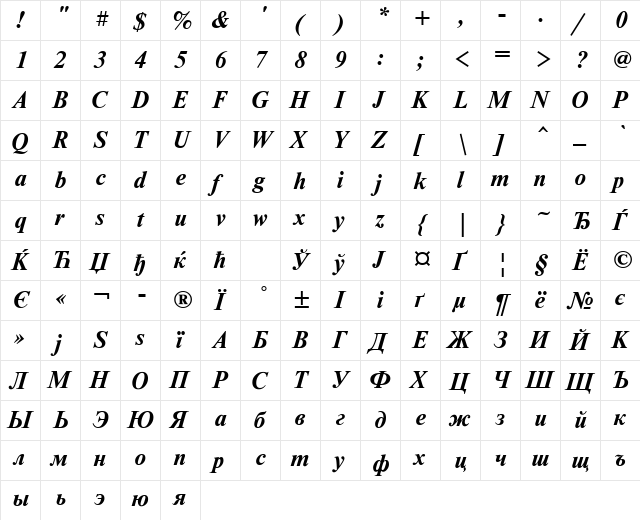
NewtonCTT BoldItalic
Design Context for NewtonCTT Typeface
NewtonCTT offers clean, dependable letterforms without strong stylistic allegiance, making it a practical choice for designers who need flexibility. Its italic angle brings a sense of urgency and motion to the letterforms. Its bold stroke weight gives it real presence on the page.